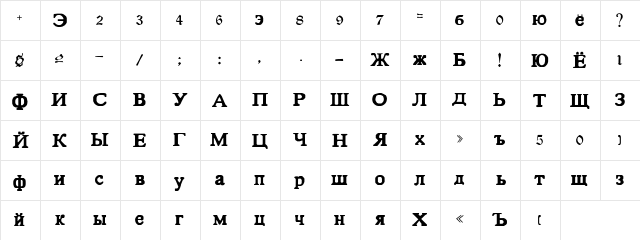
Stalin Regular
Design Context for Stalin Typeface
Stalin offers clean, dependable letterforms without strong stylistic allegiance, making it a practical choice for designers who need flexibility.